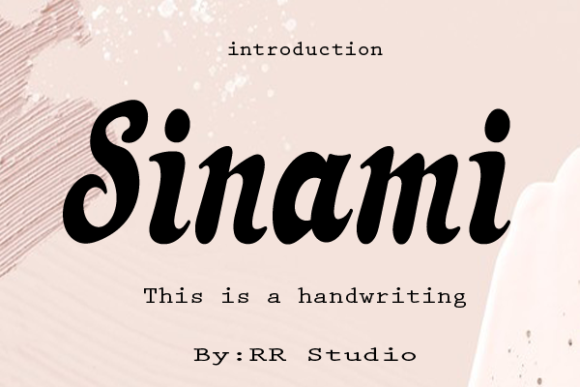
Sinami Font
About Sinami Font
Sinami is a paint brushed handwritten font. It looks stunning on wedding invitations, thank you cards, quotes, greeting cards, logos, business cards and every other design which needs a trendy touch.